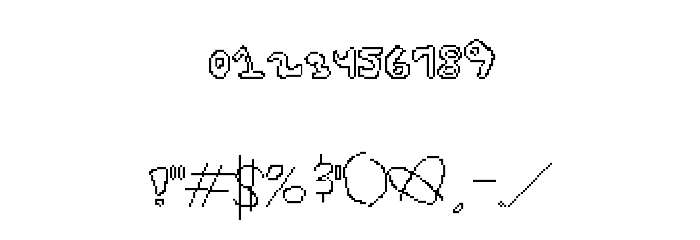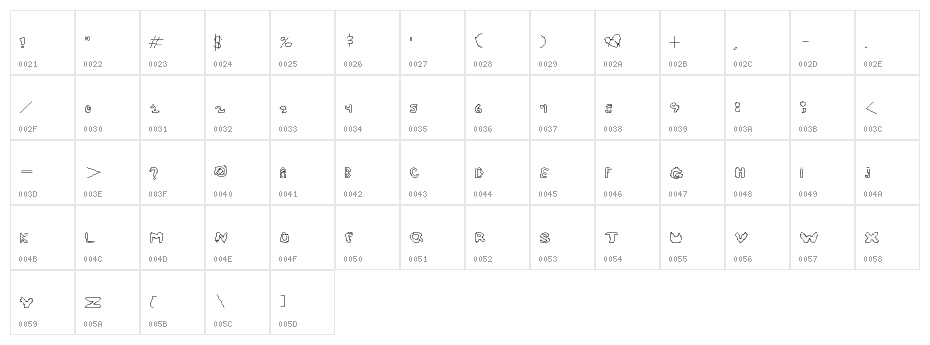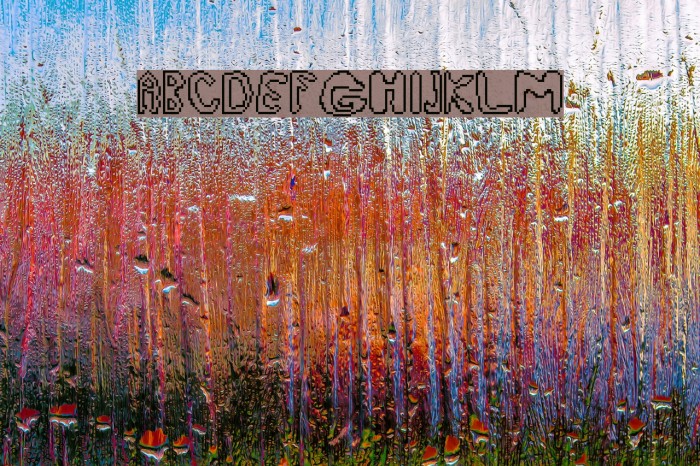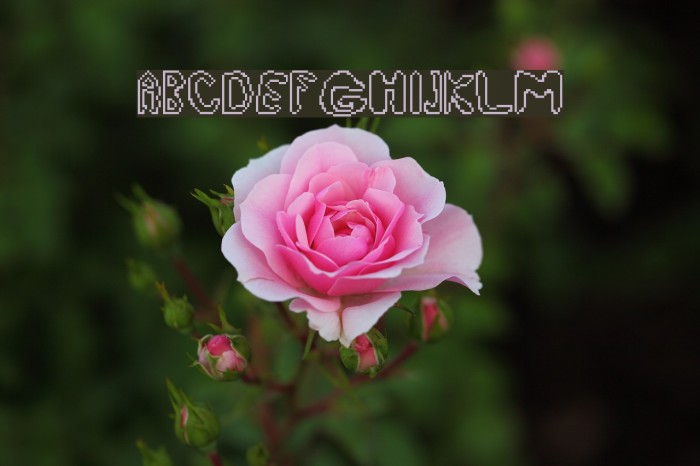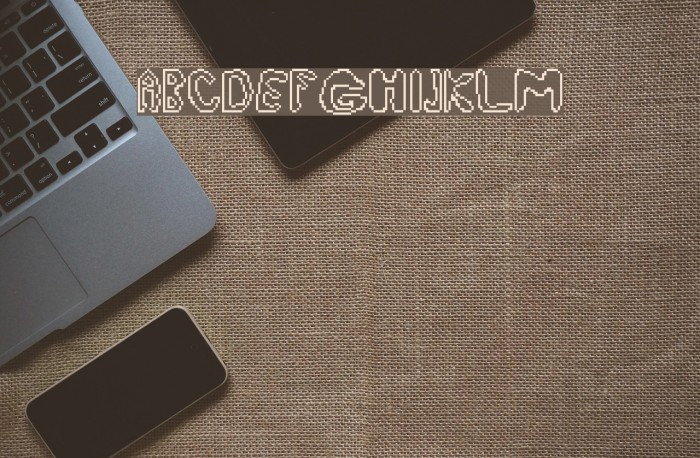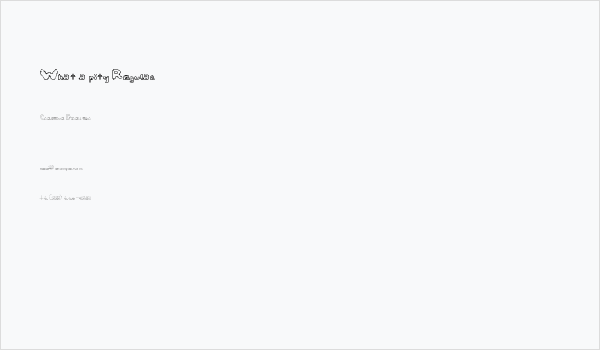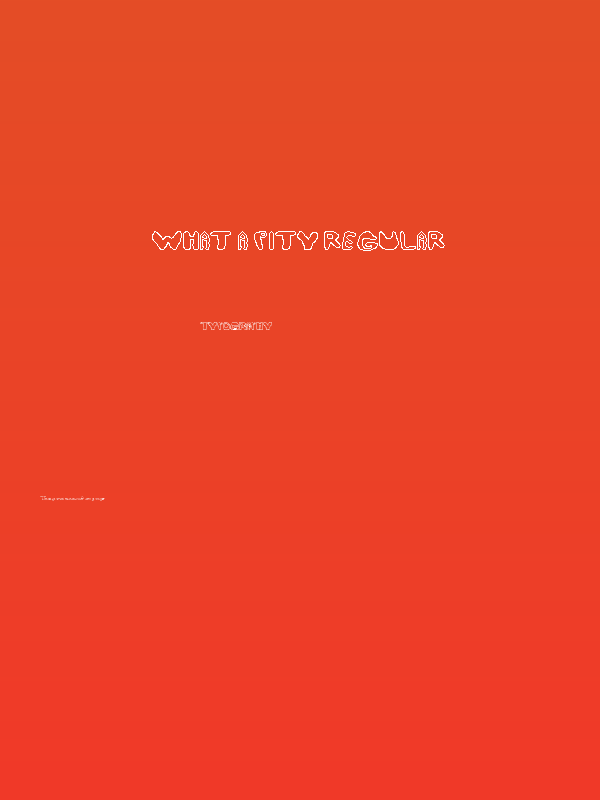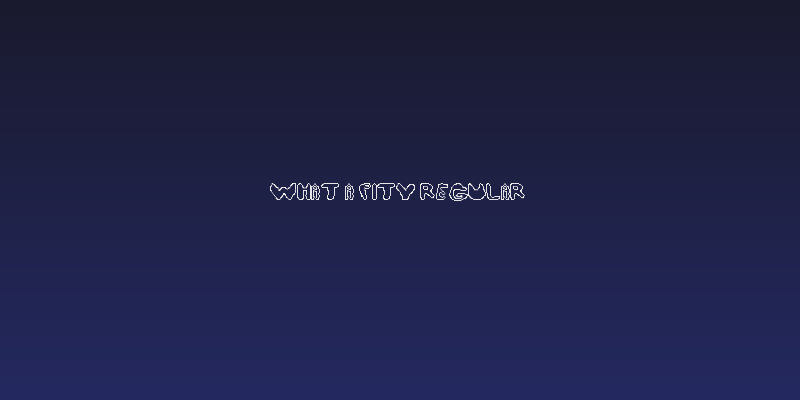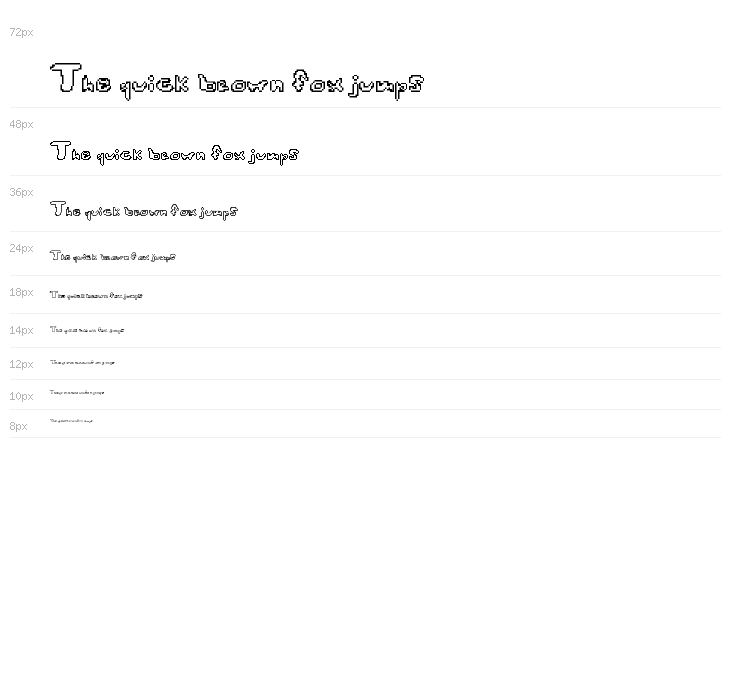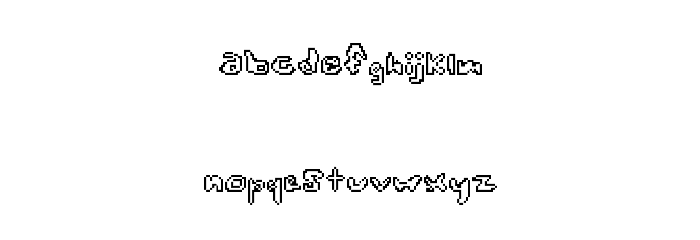
What a pity Regular Font
What a pity Regular Description
This font features a playful and whimsical design, characterized by its hollow, outlined letters that give it a unique and eye-catching appearance. The uppercase letters are bold and prominent, with a slightly irregular and hand-drawn quality that adds to its charm. The lowercase letters maintain the same playful style, with consistent line thickness throughout. Numbers and special characters are designed to match the overall aesthetic, ensuring a cohesive look. This font's distinctive style makes it ideal for creative and informal projects.
| Overall Style | Whimsical, Playful |